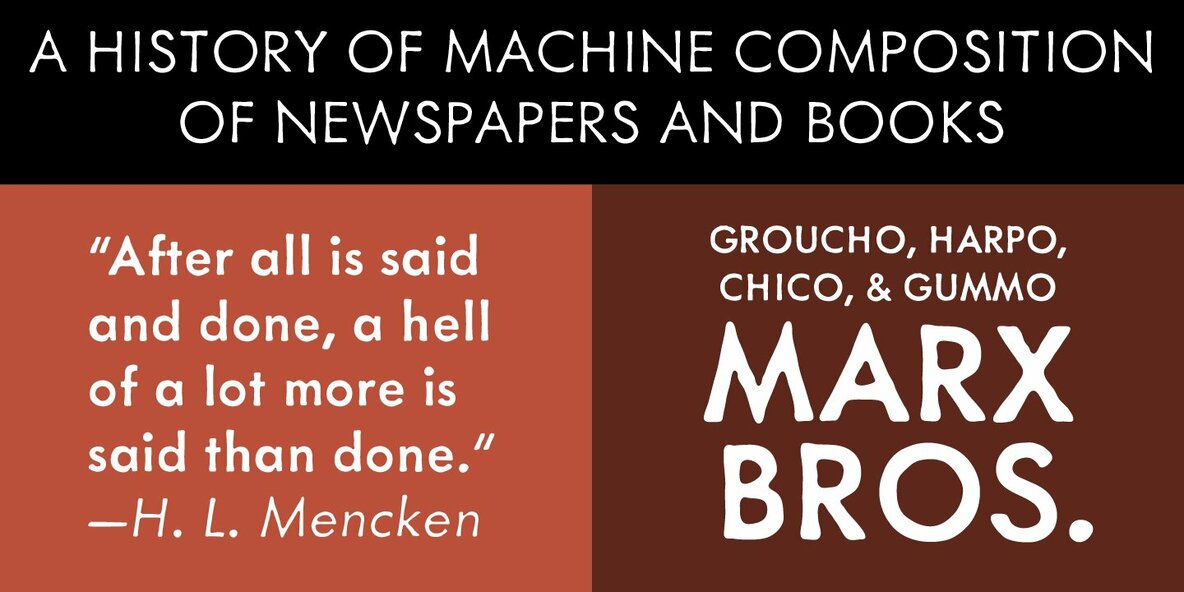
Metallophile Sp8
Metallophile Sp 8 is a faithful facsimile of an 8 point sans serif typeface as set on a 1940s vintage hot metal typesetting machine and printed on coated paper stock. The effect is very different from its modern cousins, which are drawn more rigidly, and use only one design for all sizes. Metallophile Sp 8 is best if used at or near 8 points. Features include: - Extended language support using Unicode - Alternate two-story lowercase 'a' - Alternate left single and double quote marks - An alternate 'ß' - A large set of pre-built fractions - Automatic arbitrary fractions The Metallophile Sp8 Light